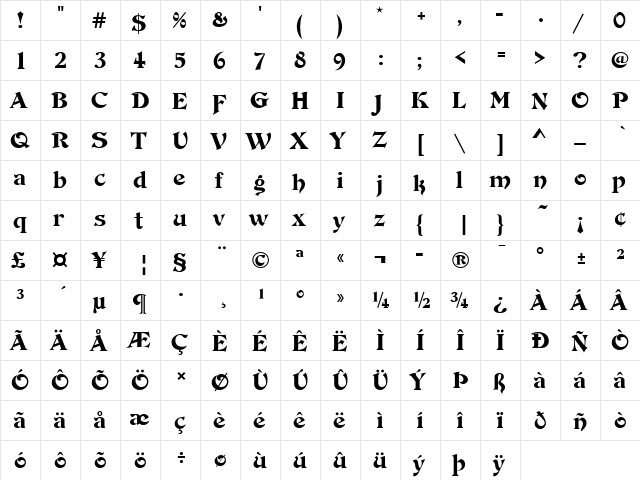
De Vinne Ornament D Regular
Design Context for De Vinne Ornament D Typeface
De Vinne Ornament D brings ornamental detail and strong personality to headlines and identities, where visual impact matters more than quiet functionality.
Font Pairing: Pair with a clean neutral sans-serif for body copy to let De Vinne Ornament D's character lead without overwhelming the composition.
Pro Tip: Treat De Vinne Ornament D as the centrepiece of your typographic hierarchy. One strong heading set in a decorative face can carry an entire layout.